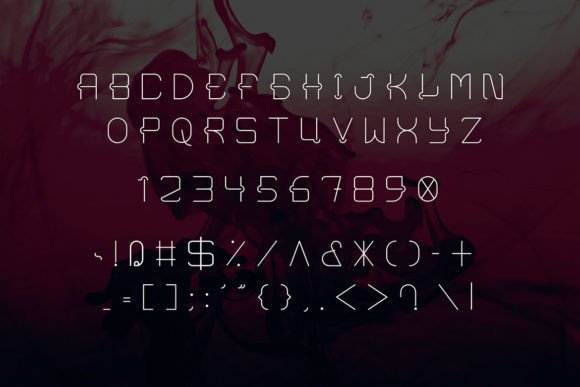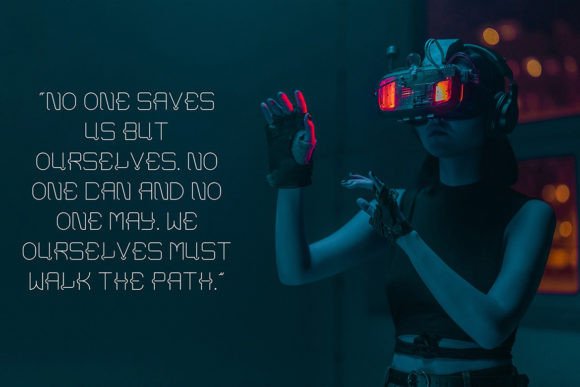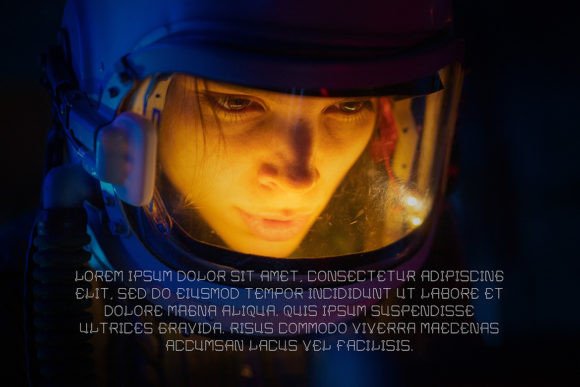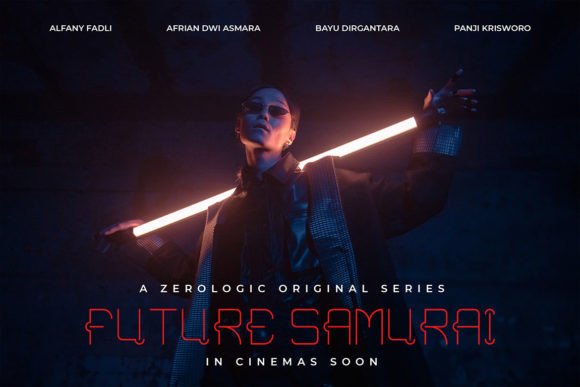
Introducing Buford Shearer Font: A Modern Design Essential
In the world of typography, a font can make or break a design. That’s why we’re excited to introduce Buford Shearer Font, a modern and versatile typeface that’s sure to elevate your creative projects. Designed with an original touch, Buford Shearer is the perfect addition to your font library, whether you’re a designer, crafter, or simply someone who appreciates great typography.
What is Buford Shearer Font?
Buford Shearer is a contemporary font that we’ve crafted with precision and attention to detail. This cool font is complete with uppercase, lowercase, and numeric & symbols, making it a comprehensive solution for a wide range of design needs. Its strong and sharp lines give it a distinctive edge, perfect for making a statement in your designs.
Key Features of Buford Shearer Font
• Complete Character Set: Buford Shearer includes a full range of characters, from uppercase and lowercase letters to numbers and symbols, ensuring you have everything you need to create stunning text-based designs.
• Modern and Versatile: This font’s modern aesthetic makes it suitable for a variety of applications, from digital platforms like websites and social media to print materials such as posters, magazines, and brochures.
• Highly Legible: Despite its sharp and strong lines, Buford Shearer maintains excellent legibility, making it perfect for both headings and body text.
Use Cases for Buford Shearer Font
The versatility of Buford Shearer Font makes it an excellent choice for a multitude of design projects. Here are some of the many ways you can use this fantastic font:
• Title and Heading Text: The font’s strong and sharp characteristics make it ideal for titles and headings, adding impact and emphasis to your message.
• Typography and Posters: Create eye-catching posters and typographic artworks that stand out from the crowd with Buford Shearer’s unique aesthetic.
• Magazines and Brochures: Elevate your print materials with a modern and sophisticated font that captures readers’ attention.
• Packaging Design: Make your product packaging more appealing and distinctive with Buford Shearer’s contemporary look.
• Websites: Enhance your website’s typography with a font that’s not only visually appealing but also highly legible on digital screens.
Why Choose Buford Shearer Font?
In a sea of fonts, Buford Shearer stands out for several reasons:
• Original Design: Unlike generic fonts, Buford Shearer was designed with an original touch, ensuring your designs have a unique edge.
• Quality and Precision: Every detail in Buford Shearer has been meticulously crafted to provide the highest quality font experience.
• Support for Multiple Languages: Buford Shearer Font supports multiple languages, making it a great choice for global brands and projects.